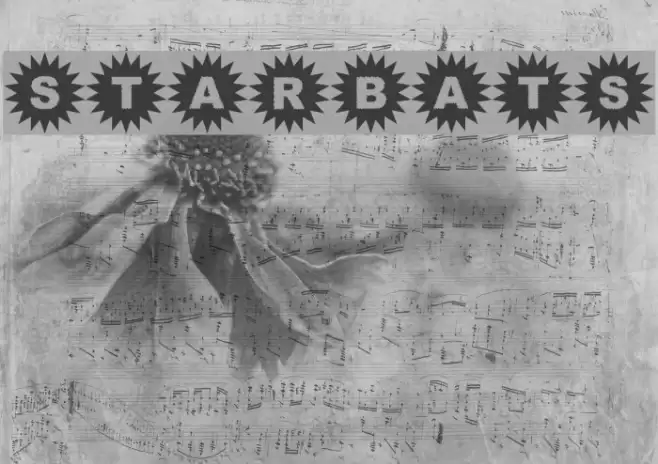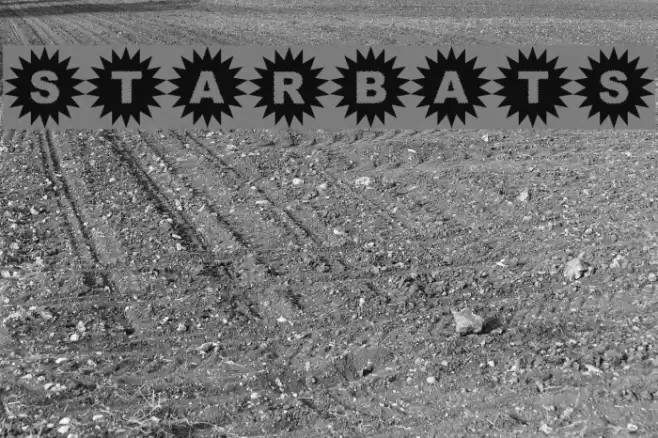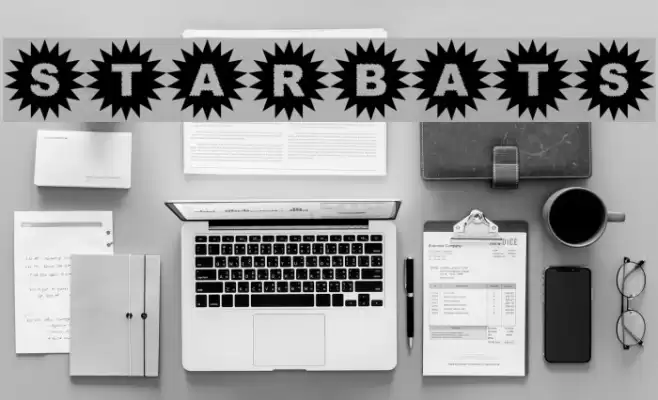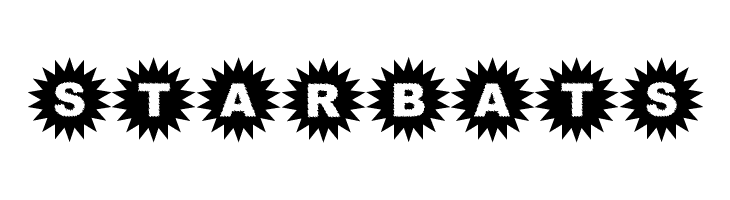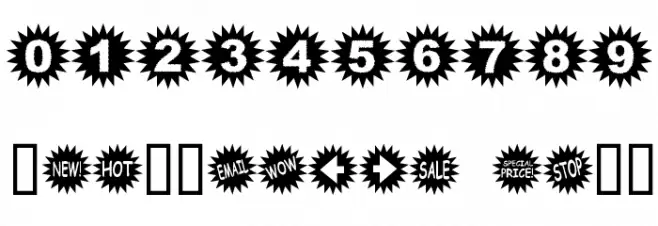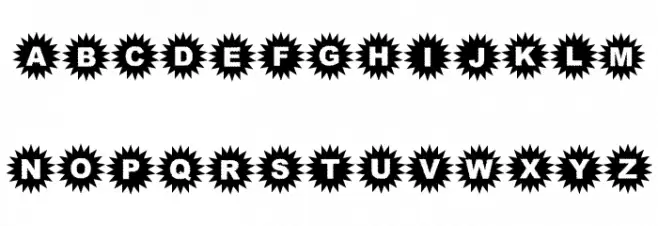
Starbats
This font features bold, uppercase letters and numbers encased in starburst shapes, creating a dynamic and eye-catching effect. The characters are evenly spaced within the starbursts, which have sharp, pointed edges that radiate outward. This design is highly decorative and intended to grab attention, making it ideal for promotional materials. The font includes a range of special characters and symbols, each uniquely styled to maintain the starburst theme. The overall appearance is playful and energetic, suitable for projects that require a bold statement.
A bold, decorative font with characters encased in starburst shapes.
- Proposed Projects: Ideal for promotional materials, event posters, sale signs, and any project needing a bold, attention-grabbing font.
- Contrast: High
- Overall Style: Decorative
- Use Case: Headlines, Logos, Promotional materials